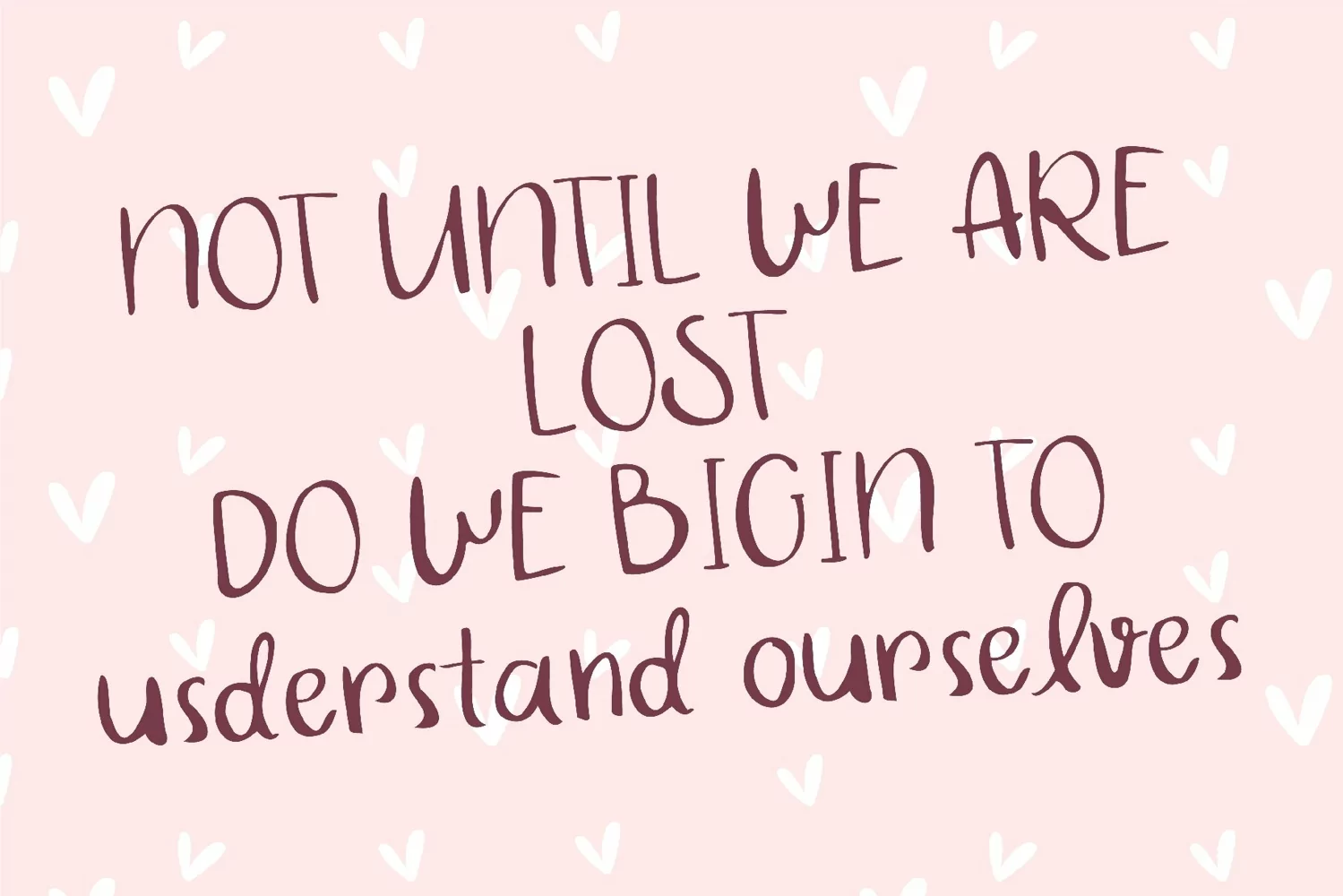
Dream destination is stylish sans serif handwritten font with fun informal and perfect for any events.
Dream destination is perfect for branding projects, logo, wedding designs, social media posts, advertisements, product packaging, product designs, label, photography, watermark, invitation, stationery, and any projects that need handwriting taste.